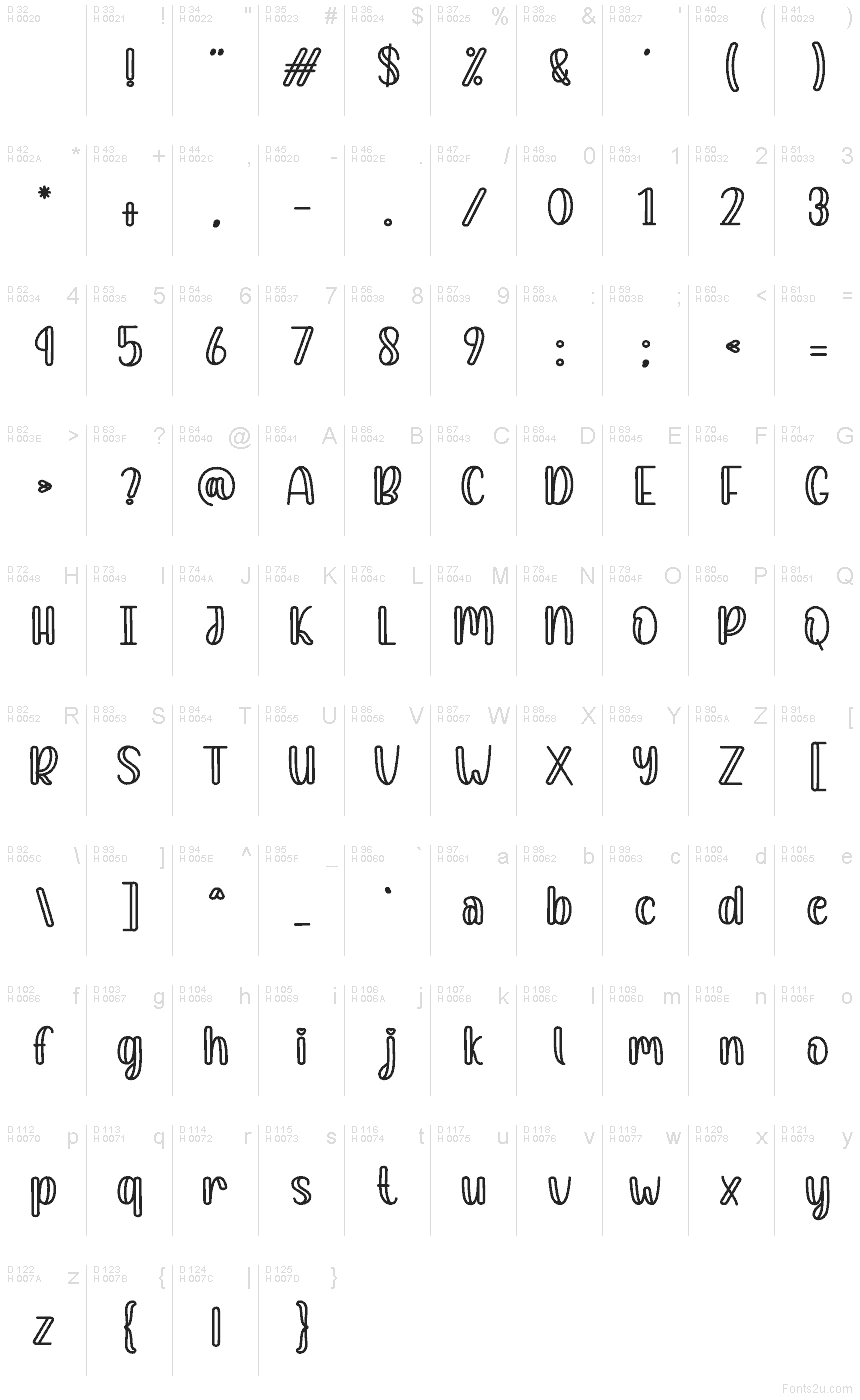
Winter Monkey
Winter Monkey font by Andi Moz is a free regular outlined brush font. Built around a jaunty double-stroke that looks hand-drawn and slightly inky, it keeps strokes even and loops bouncy, so text reads playful without turning messy. Soft curves, roomy counters, and that cheeky heart-touched flair give headlines a warm, crafty sparkle.
Using Winter Monkey, you’ll get lively rhythm that shines on kids’ branding, holiday cards, party invitations, teacher printables, stickers, and sweet treat packaging. The open outline invites color-fills, gradients, or glitter textures for instant depth, and scales well from badge-sized tags to bold banners. Pair this free font with a simple rounded sans for body copy, or let it stand solo with generous line spacing to keep its airy charm.